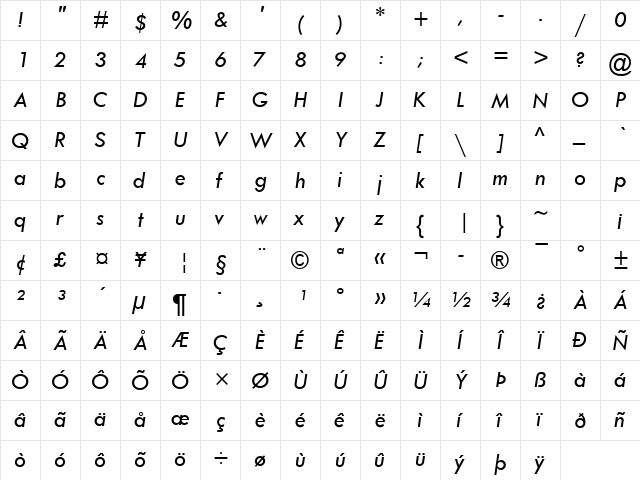
Tw Cen MT Medium Italic Font Preview
Tw Cen MT Medium Italic
Tw Cen MT Medium Italic Font Details
| Style | Medium Italic |
| Foundry | Monotype Typography |
| Designer | Sol Hess |
Design Context for Tw Cen MT Typeface
Tw Cen MT offers clean, dependable letterforms without strong stylistic allegiance, making it a practical choice for designers who need flexibility. The dynamic lean of this cut emphasises speed and emphasis in any layout.
Pro Tip: Try Tw Cen MT for annotation and caption copy alongside an upright companion — the contrast in angle creates a dynamic but ordered typographic system.